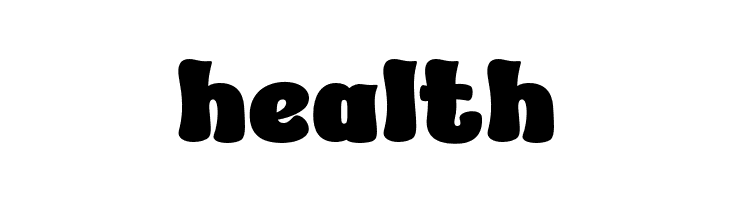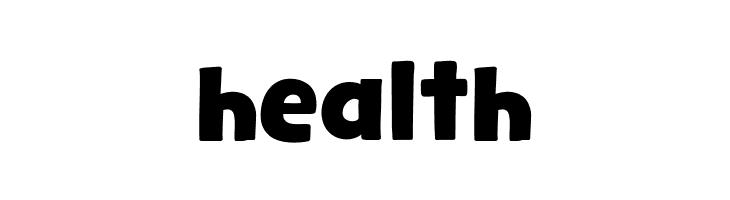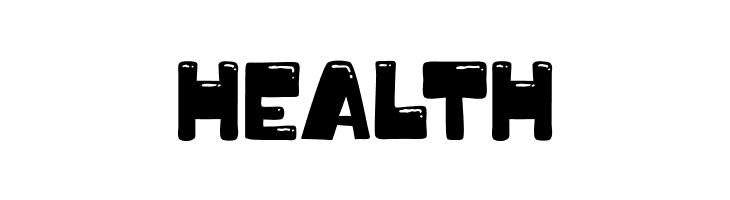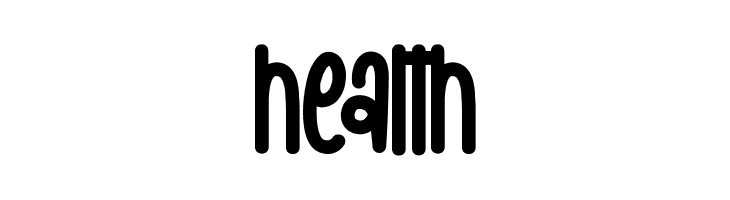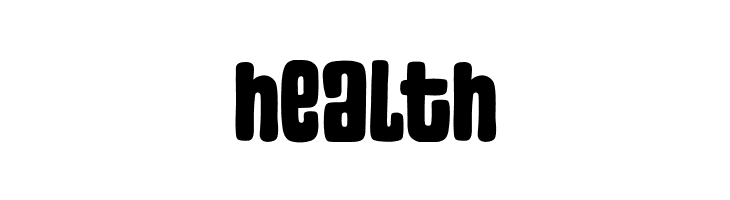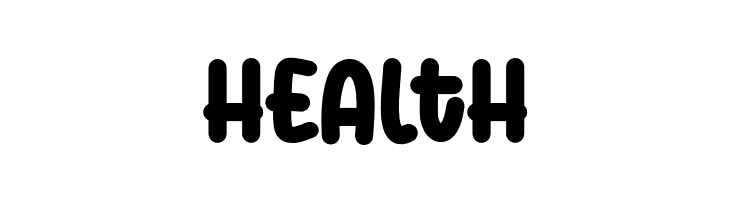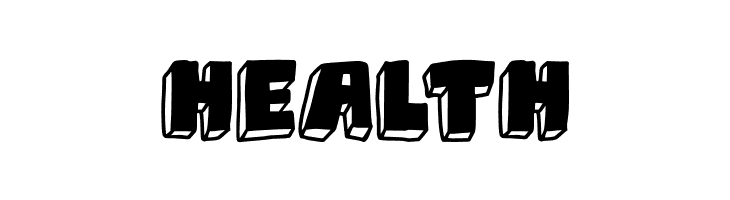
A bold, playful font with thick, rounded strokes and a whimsical style.
A playful, hand-drawn font with bold, cartoonish letters and a whimsical style.
A bold, playful font with a double outline and rounded characters.
A playful, bold font with a hand-drawn, whimsical style.
A bold, playful font with rounded characters and a cartoonish outline.
Hand-drawn icon dingbat font with a playful, sketchy style.
A playful, hand-drawn font with irregular and whimsical letterforms.
A bold, playful font with a hand-drawn comic book style.
A playful, bubbly font with bold, rounded characters and a whimsical design.
A bold, playful font with thick, rounded characters and a whimsical style.
A playful sans-serif font with decorative dots on each character.
A playful, bubble-like font with rounded, bold characters.
A bold, playful font with thick strokes and rounded edges.
A bold, playful font with thick, rounded characters and a whimsical style.
A bold, playful font with outlined characters and a comic book style.
A bold, playful font with a 3D shadow effect and rounded characters.
A playful, hand-drawn font with irregular strokes and a lively appearance.
A bold, playful font with a hand-drawn, energetic style.
A bold, playful font with a chunky, hand-drawn style.